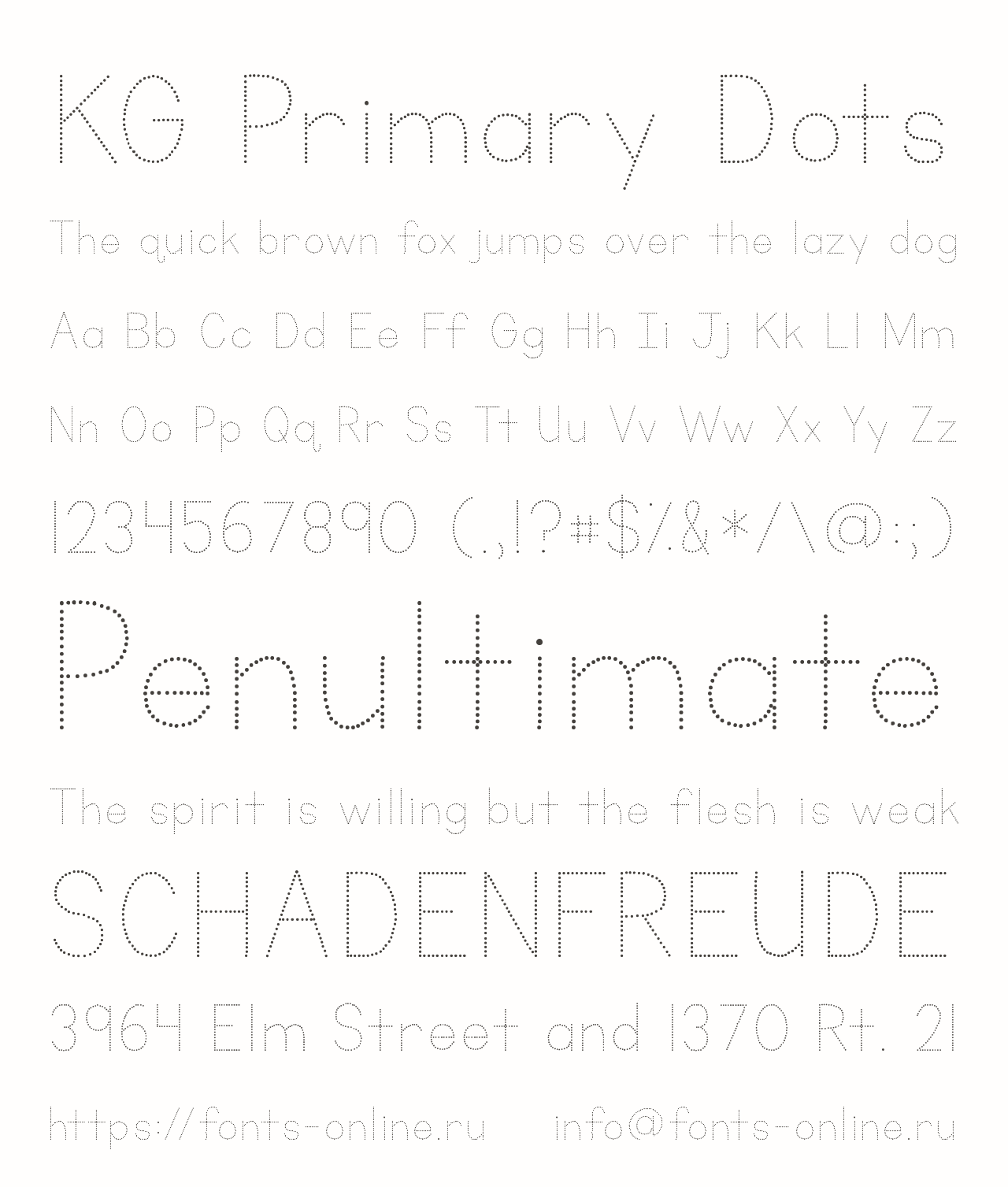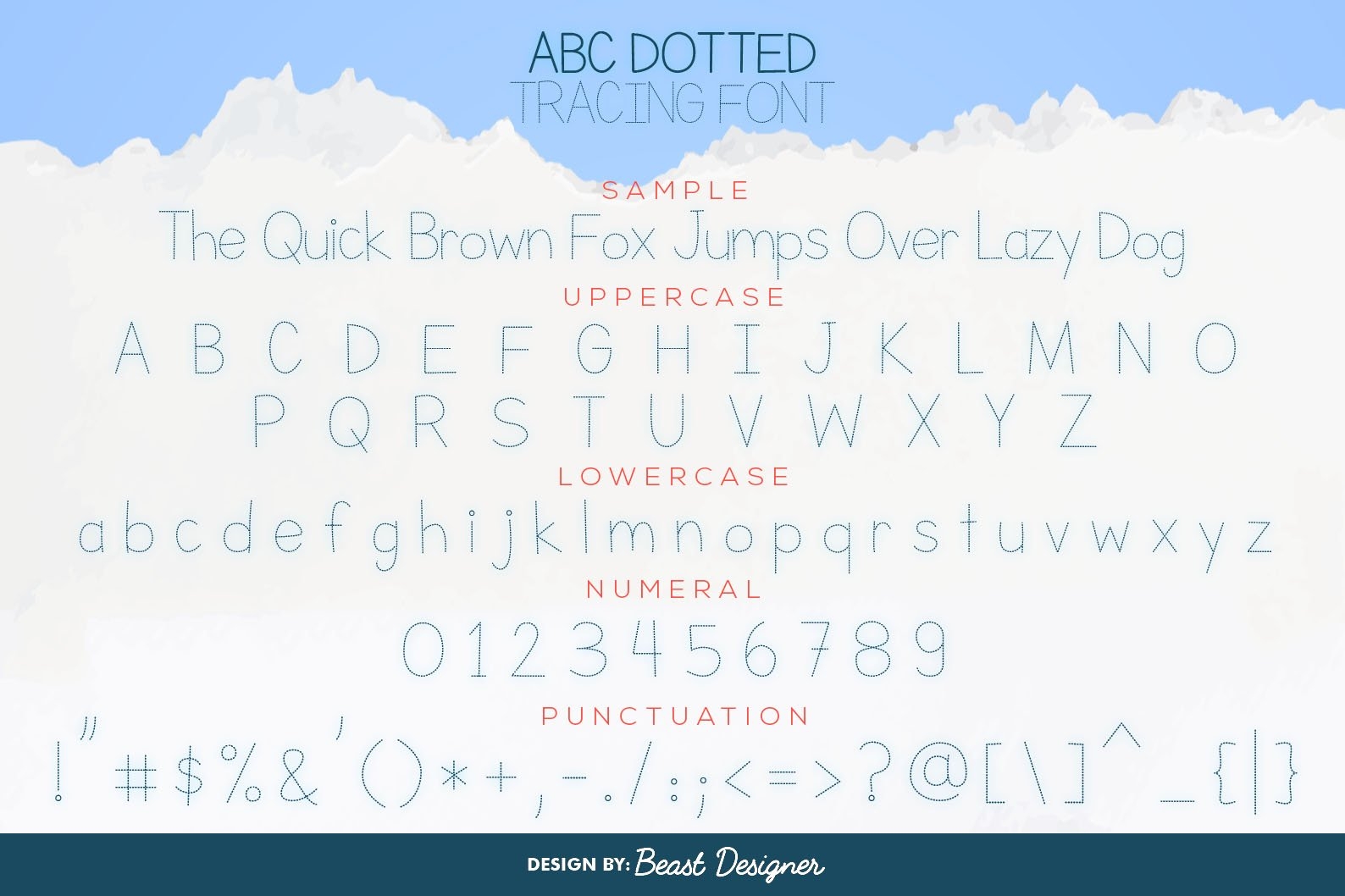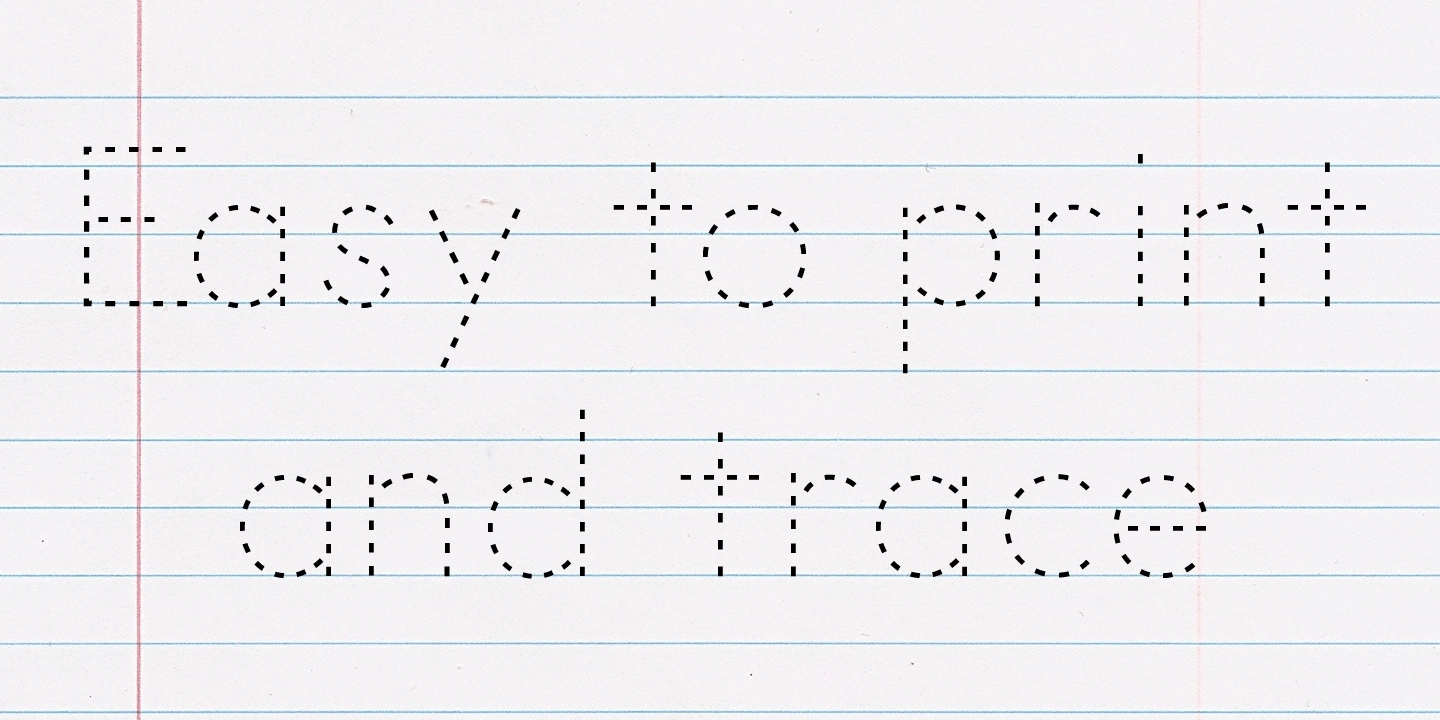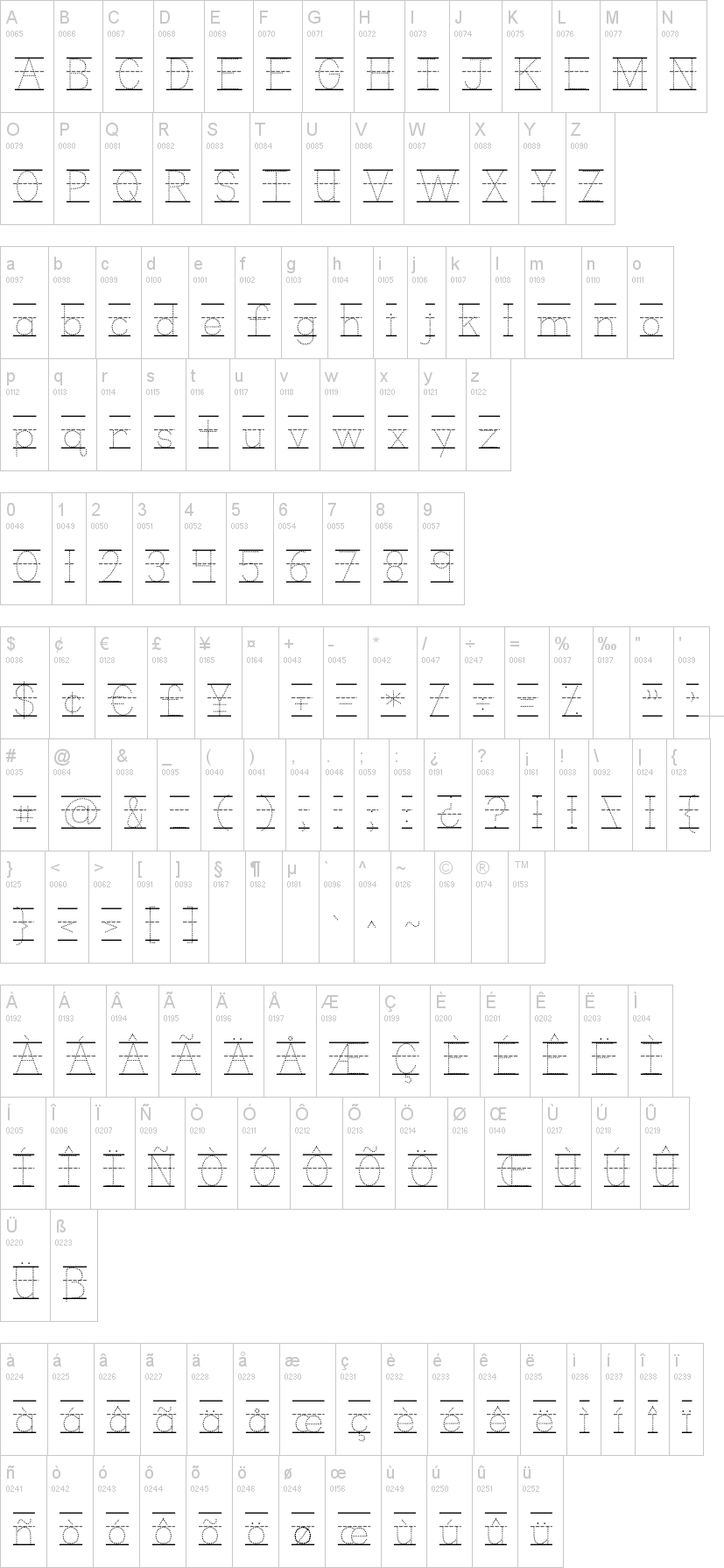
Finding the perfect font for tracing can be a game-changer for your creative projects. Whether you’re working on crafts, educational materials, or personal art, a dotted font can add a unique touch to your designs.
A dotted font is perfect for tracing because it provides clear guidelines. This makes it easier to follow along, especially for beginners or children learning to write. The playful design encourages creativity and fun.
When searching for a free download dotted font for tracing, consider the style that best fits your project. Some fonts are more whimsical, while others are sleek and modern. Choose one that resonates with your vision.
Incorporating a dotted font into your projects can elevate your designs significantly. It adds an interactive element that engages users and enhances the overall aesthetic of your work.
Exploring different dotted fonts can be an enjoyable experience. With so many options available for free download, you’re sure to find one that suits your needs perfectly and inspires your creativity.